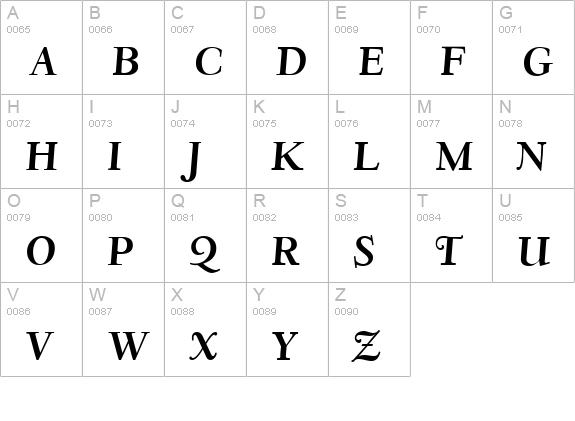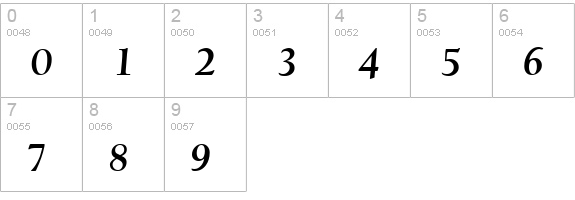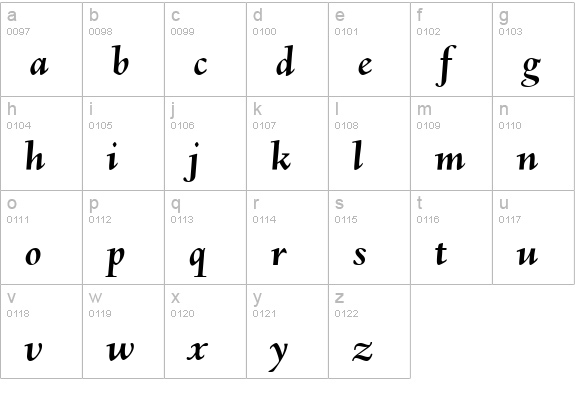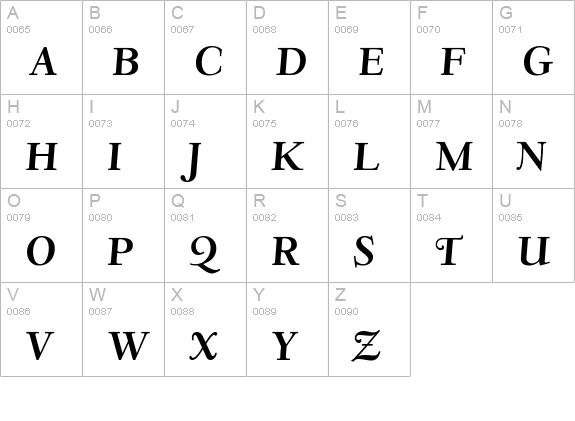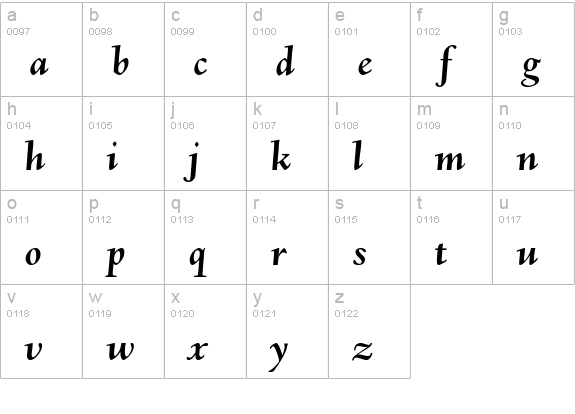
D690-Roman-BoldItalic Font Details
Introducing D690 Roman Bold Italic font, a versatile and modern typeface that exudes elegance and sophistication. This bold italic font is perfect for making a statement in any design project, whether it's for branding, editorial design, or advertising. With its strong and dynamic presence, D690 Roman Bold Italic font commands attention and adds a touch of flair to any text. What's even better is that this stunning font is available for free download at FontsMarket.com. Yes, you heard it right - you can access this premium quality font at absolutely no cost. Don't miss out on the opportunity to enhance your projects with the bold and stylish D690 Roman Bold Italic font. Download it now and elevate your designs to the next level!